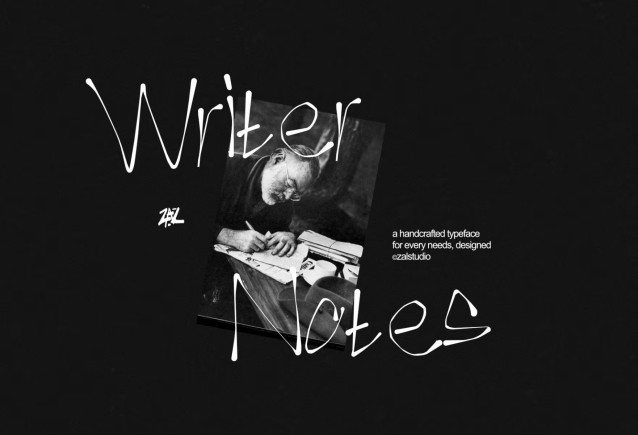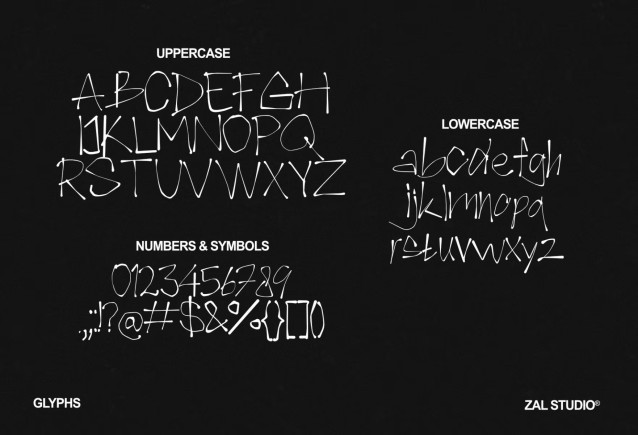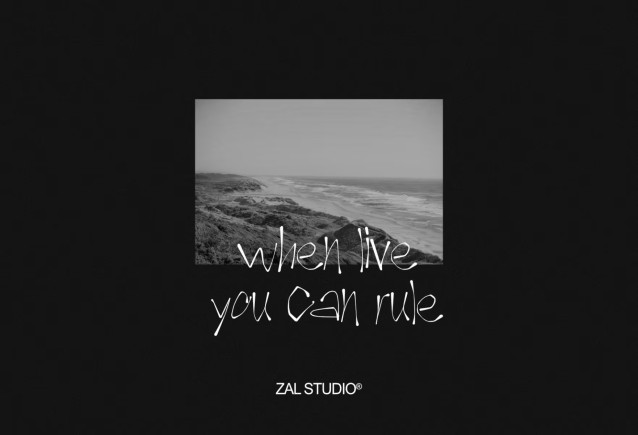
Writer Notes – Handwritten Script Font
Writer Notes is a charming handwritten script font designed to capture the natural feeling of personal notes, creative journaling, and authentic handwritten lettering. With its casual, flowing strokes and organic character, this typeface brings a warm and personal touch to both digital and print designs.
Perfect for branding, logos, social media graphics, stationery, invitations, greeting cards, packaging, posters, quotes, apparel, product labels, and editorial designs, Writer Notes is a versatile choice for projects that need a relaxed, personal, and handmade aesthetic.
Its handwritten appearance works beautifully for lifestyle branding, personal brands, creative businesses, boutique packaging, wedding stationery, journaling projects, Instagram content, Pinterest graphics, and modern editorial layouts.
Whether you’re creating a signature-style logo, a handwritten headline, an inspirational quote, or a stylish brand identity, Writer Notes helps your typography feel more authentic and personal.
Handwritten script style
Natural and casual lettering
Organic handwritten appearance
Perfect for headlines and display typography
Great for logos and branding
Suitable for social media content
Ideal for invitations and stationery
Works well for packaging and labels
Perfect for quotes and editorial designs
Suitable for personal and commercial creative projects
Writer Notes – Handwritten Script is made for designers and creatives who want typography that feels personal, expressive, effortless, and authentically handwritten.